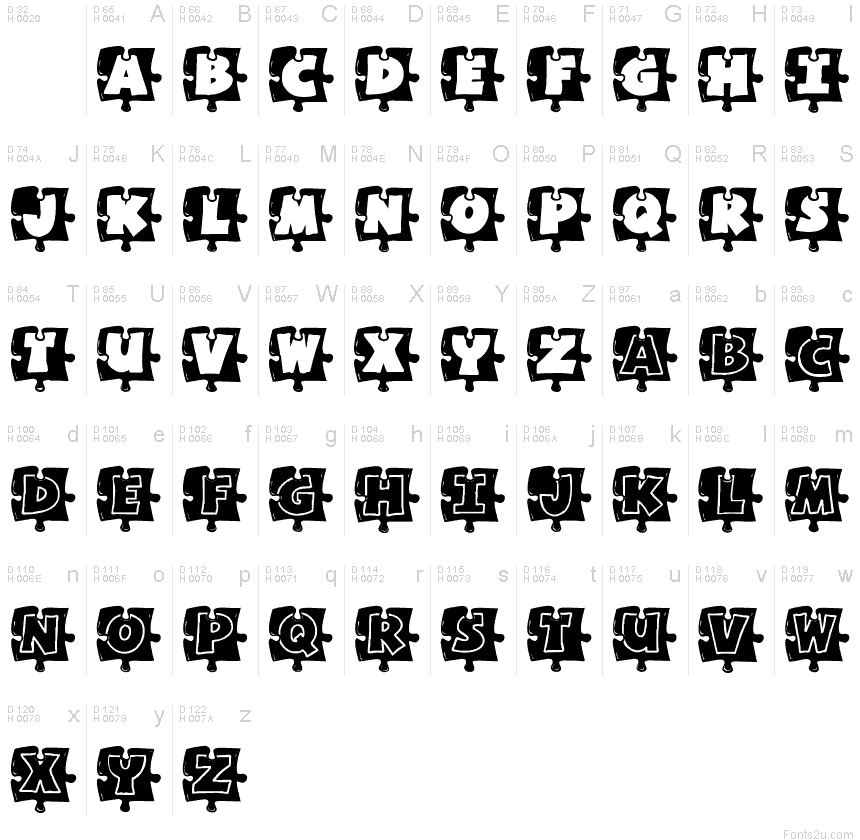
Missing Piece by Claude Derieppe is a free puzzle-themed cartoon display font built from bulky, irregular letterforms. Each character appears fitted into a jigsaw-like block, with rounded tabs and notches recurring along the edges. The uneven outlines keep it cheerfully handmade.
A children's game package is its clearest setting, and the same playful construction suits classroom posters, party invitations, and toy-store signage. In these projects, the letters can become individual illustrated puzzle pieces rather than simply labeling the design.